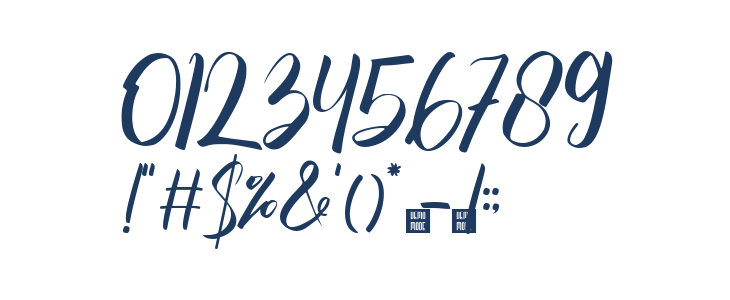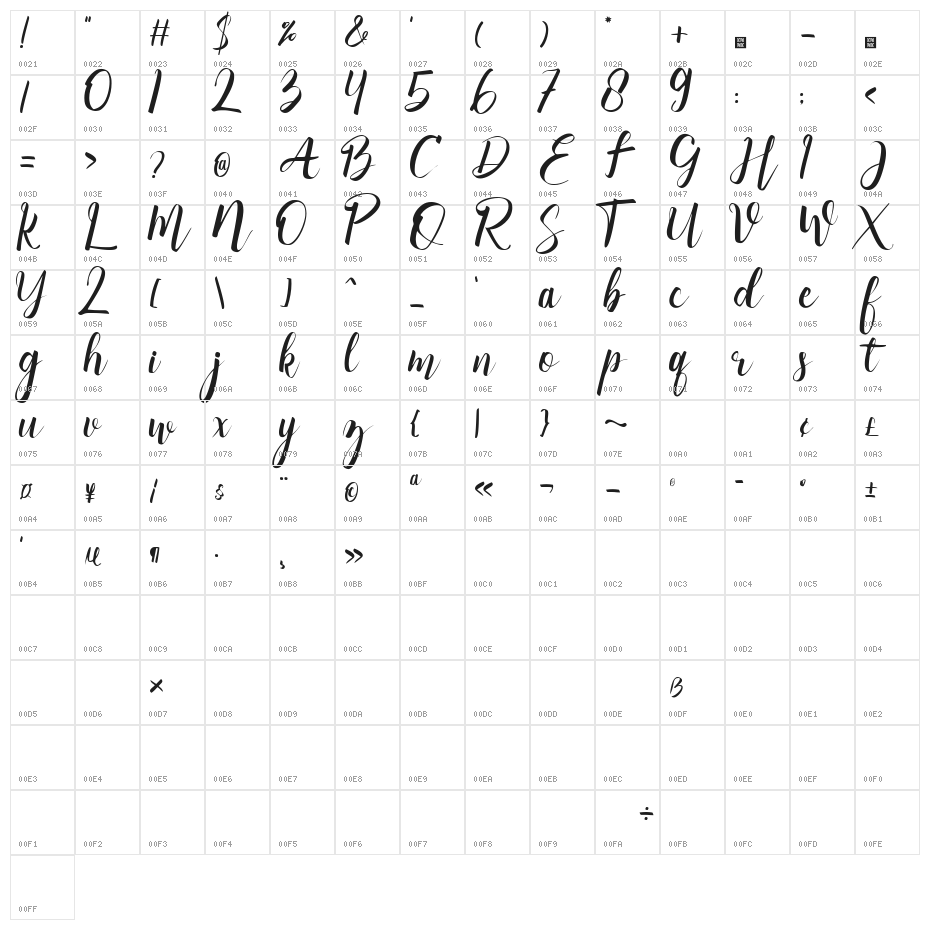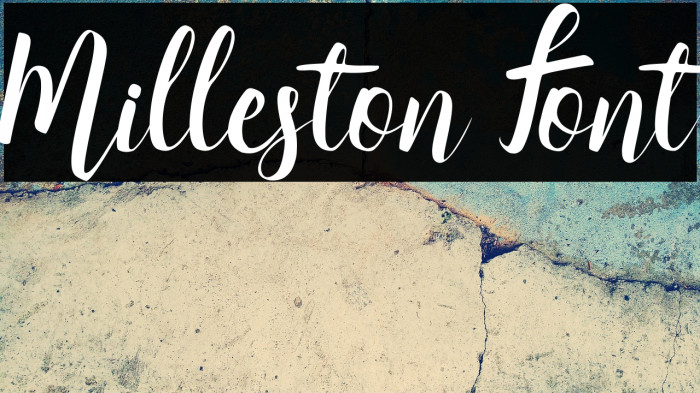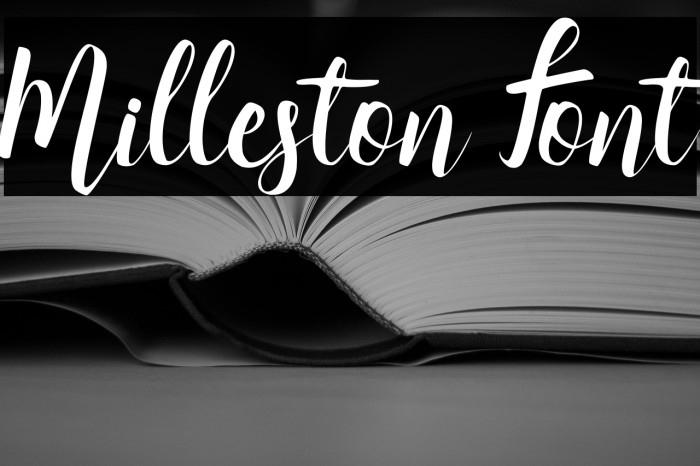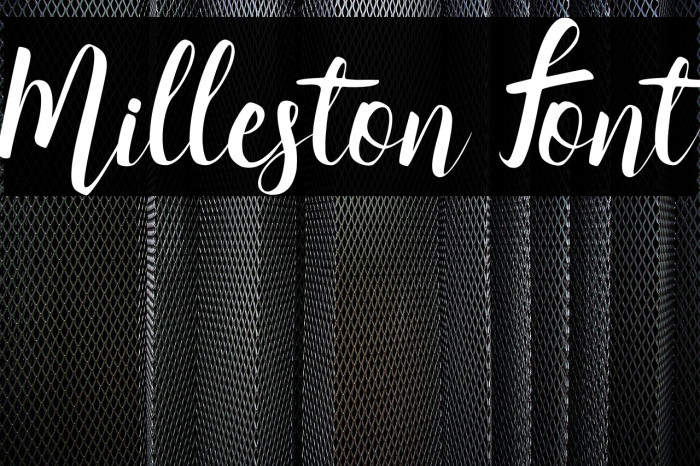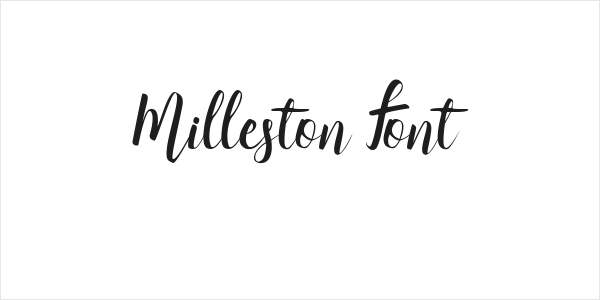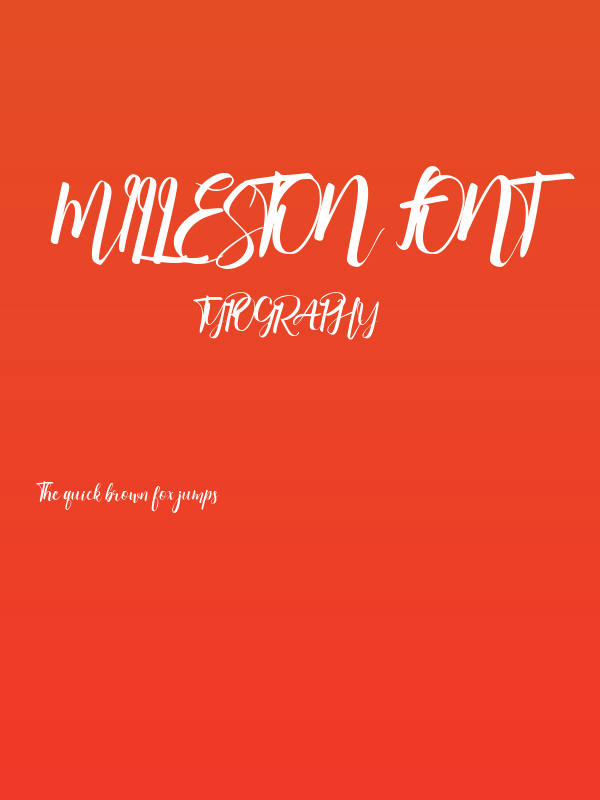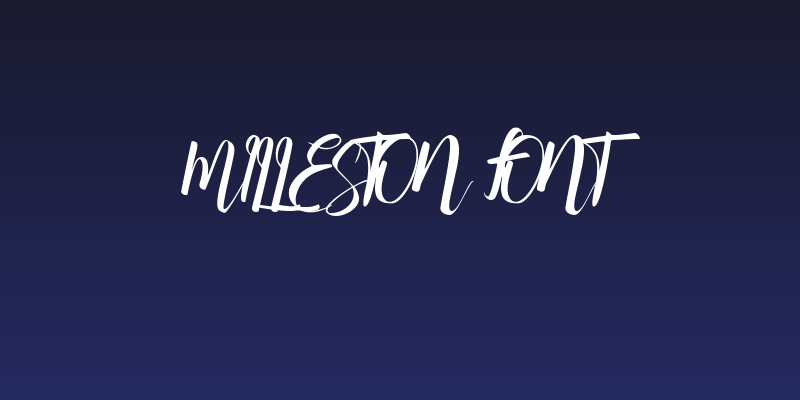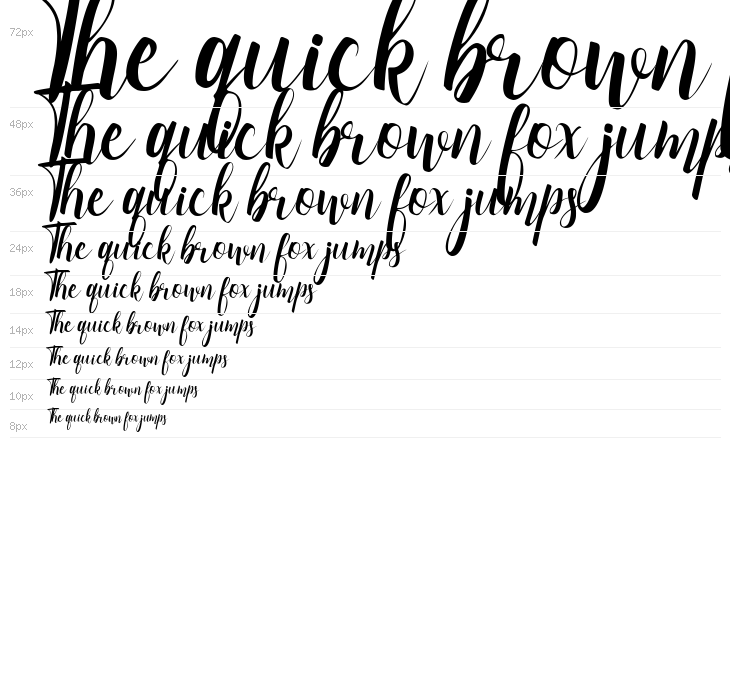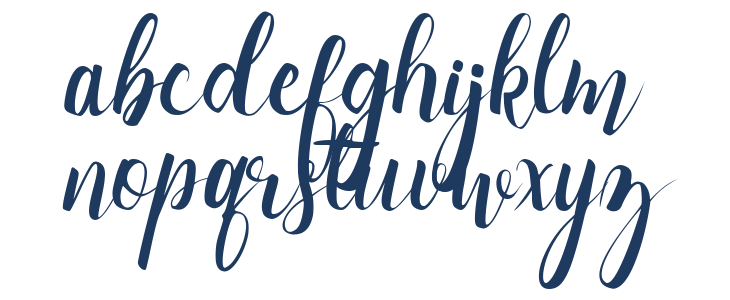
Milleston Font Font
Milleston Font Description
This font features an elegant and flowing script style, characterized by its smooth, cursive letterforms that convey a sense of sophistication and grace. The uppercase letters are bold and sweeping, with intricate loops and flourishes that add a decorative touch. The lowercase letters maintain a consistent flow, enhancing readability while preserving the font's artistic flair. Numbers and special characters are designed with the same attention to detail, ensuring a cohesive look across all text elements. The overall design is both modern and timeless, making it suitable for a variety of creative applications.